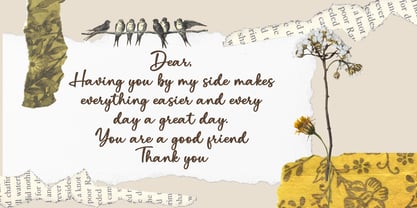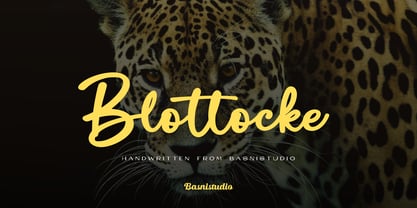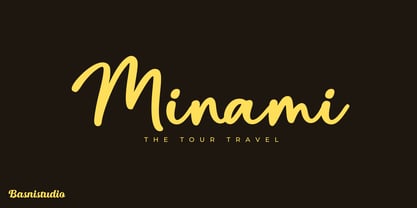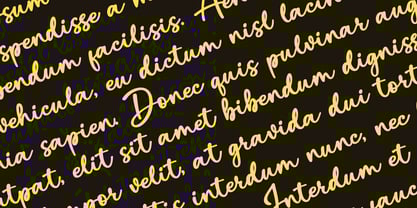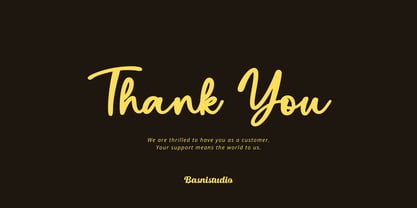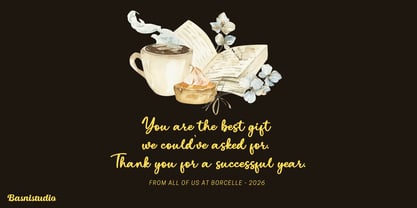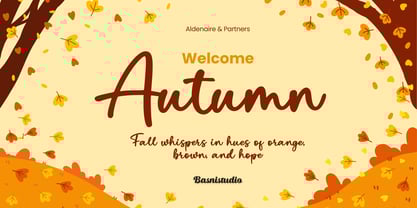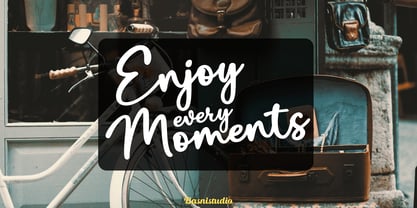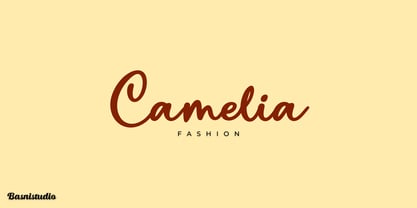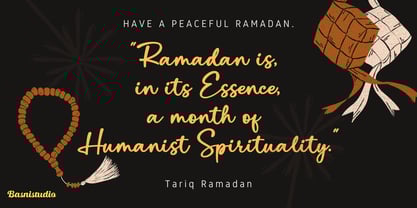
Blottocke
by Basnistudio
The Blottocke Font Family was designed by Bery Arisandi and published by Basnistudio. Blottocke contains 1 styles.
The Perfect Handwritten Touch for Your Designs Introducing Blottocke a Handwritten Font that adds a Bold and Versatile touch to everything from branding and social media to invitations and packaging. Bold & Versatile – Perfect for logos, quotes, greeting cards, and more Authentic Handwritten Feel – Created with real pen strokes for a natural look Easy to Use – Works seamlessly with all major design programs Whether you’re building a powerful brand identity or crafting a standout logo, Blottocke a Handwritten Font gives you the creative edge you need. What’s Included: Uppercase & lowercase letters Ligature Numbers & punctuation Multilingual Support ( Support for 90 languages ) If you have any questions please don’t hesitate to contact me. Thank You Very Much
Blottocke